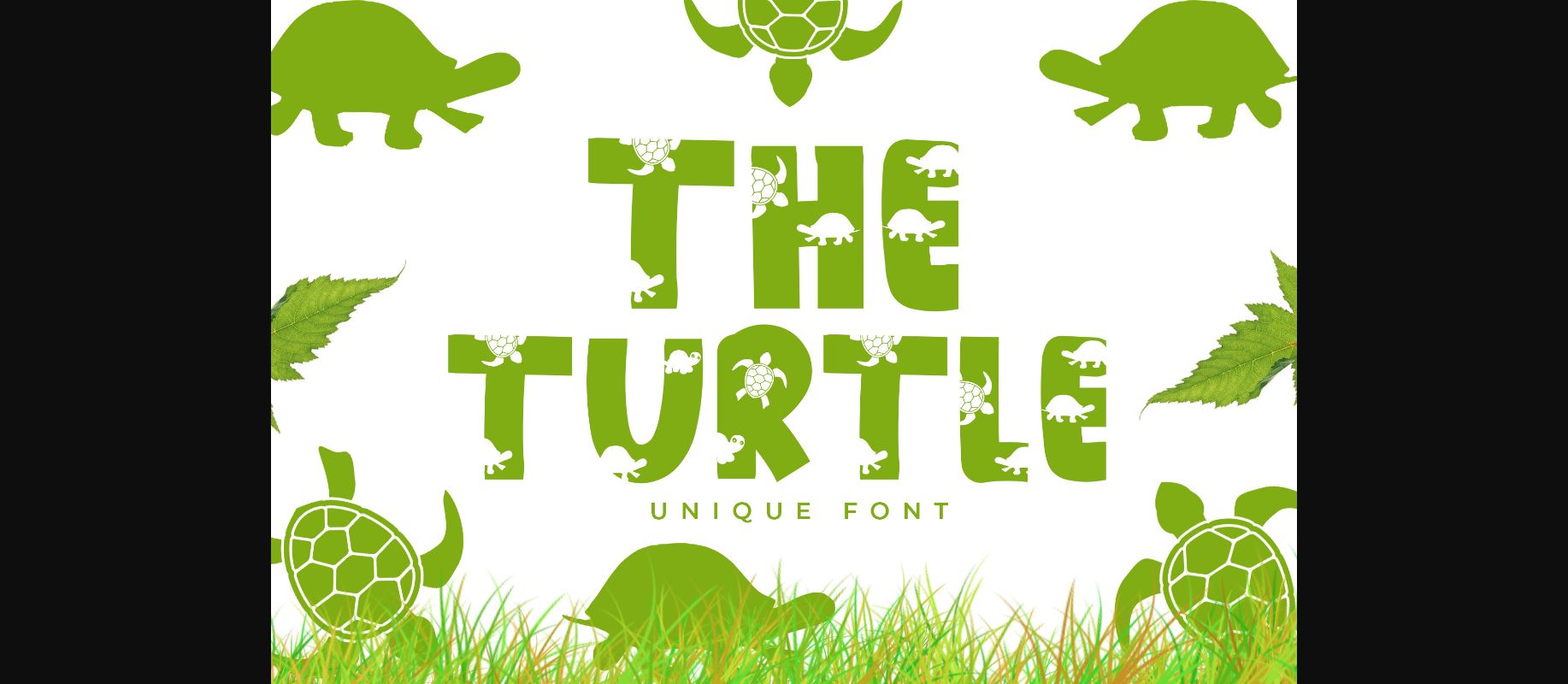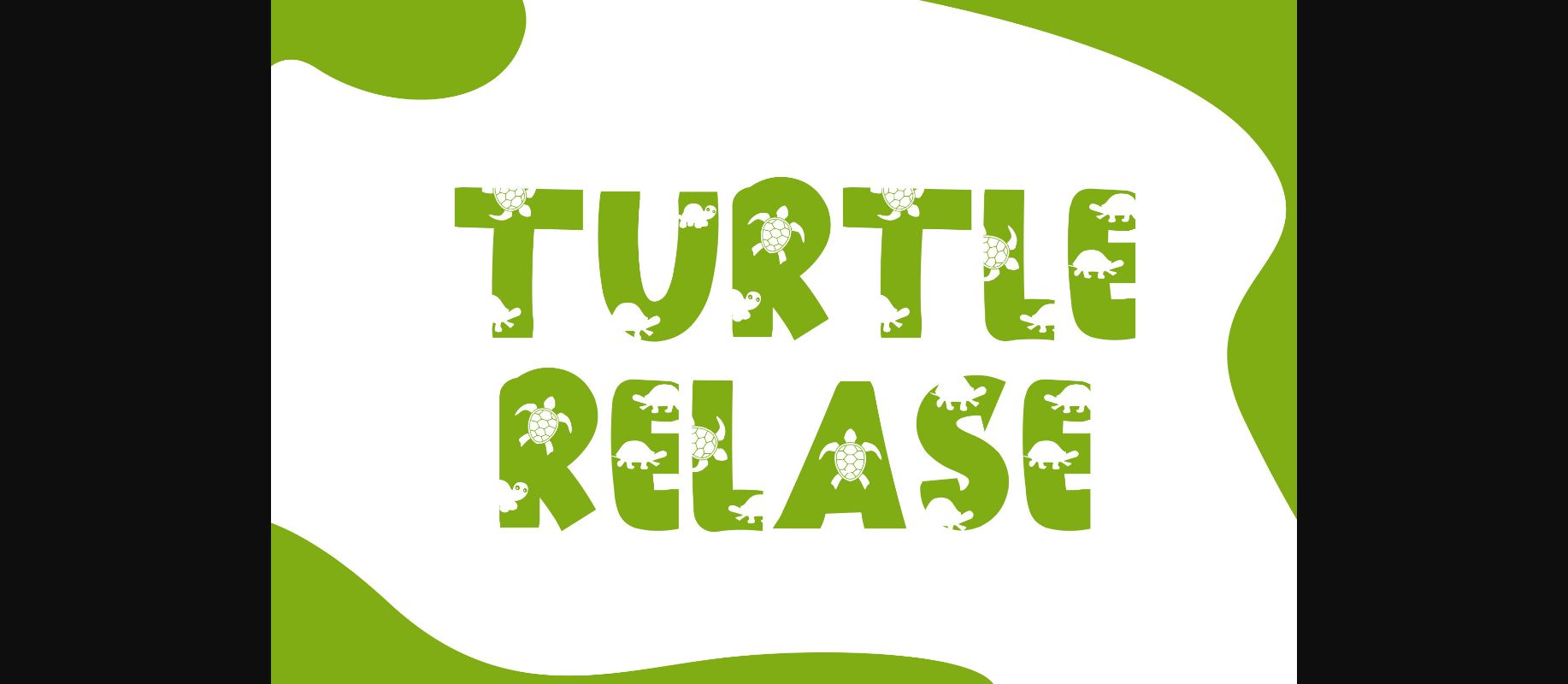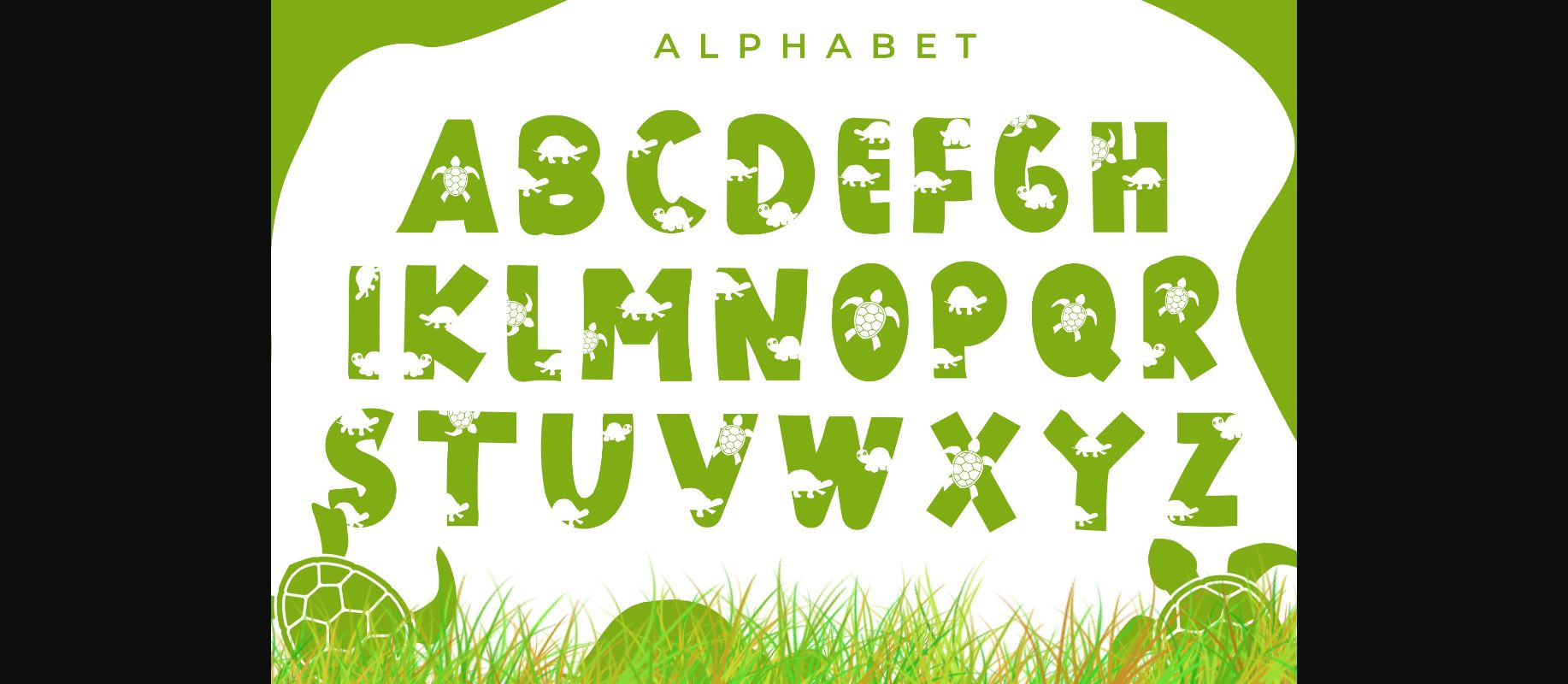
About The Turtle Font
The Turtle is a cute and fun decorative font. It embodies playfulness and authenticity and is the perfect choice for any children activity or school project.